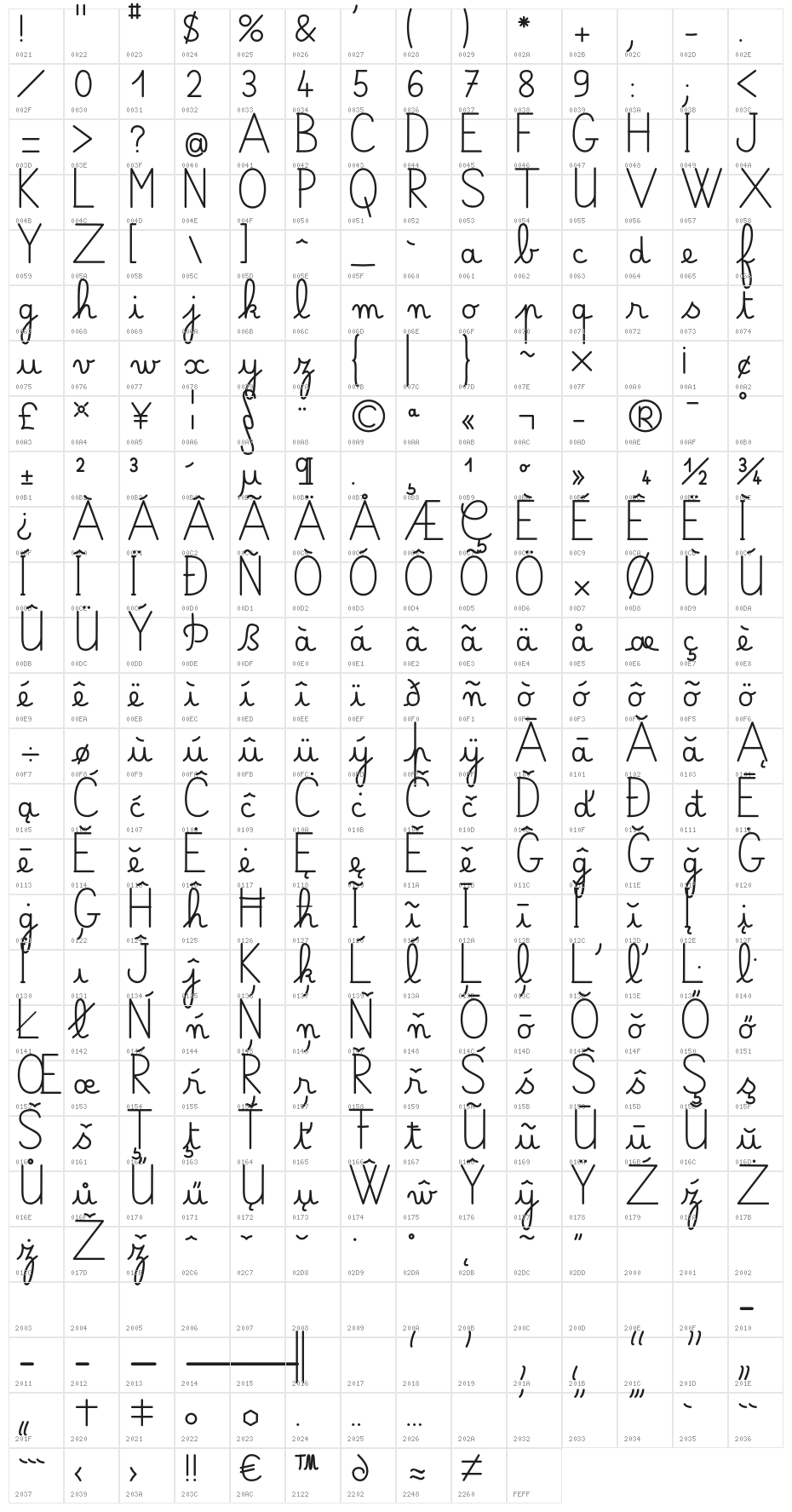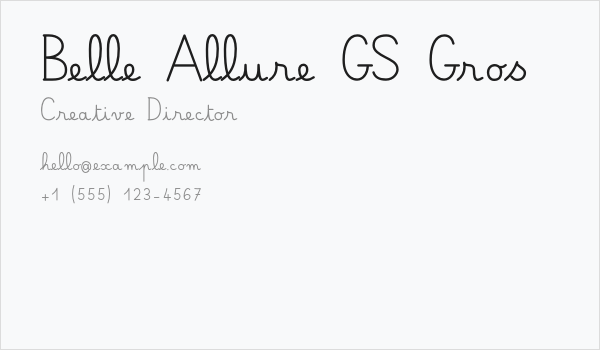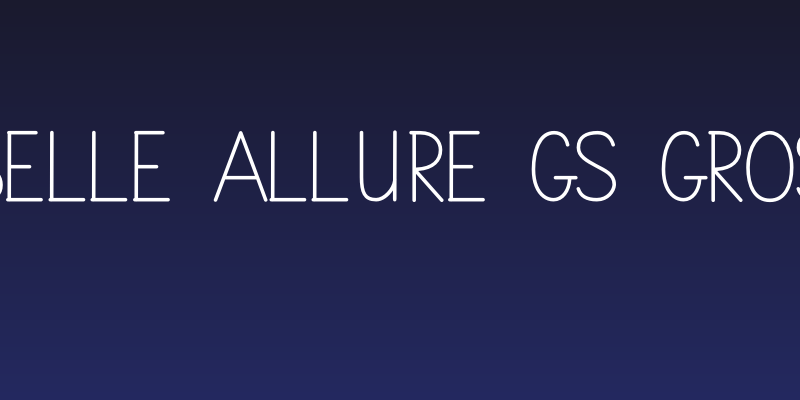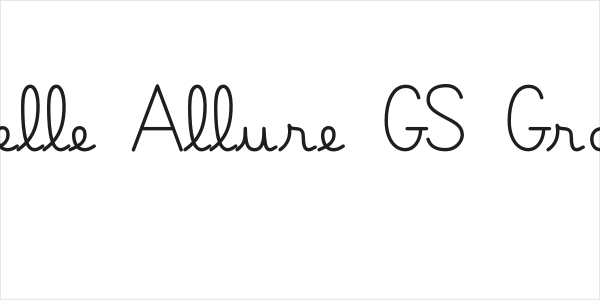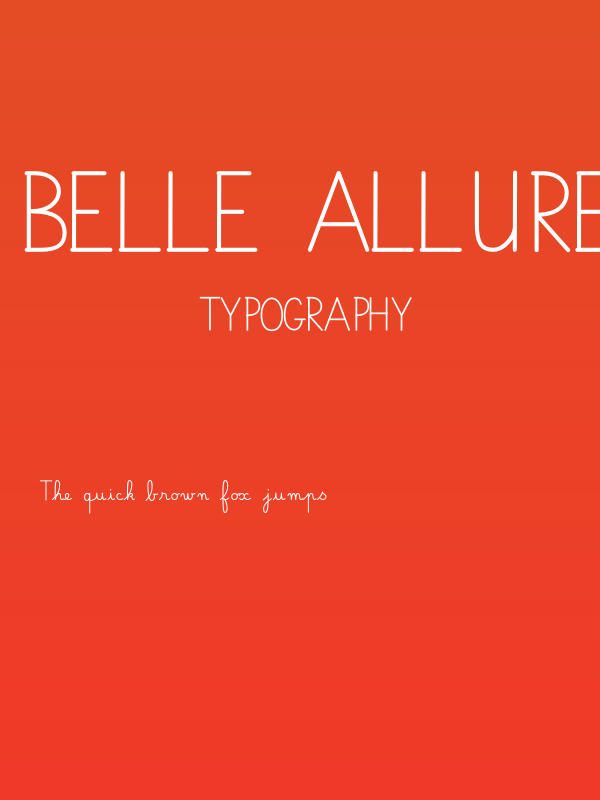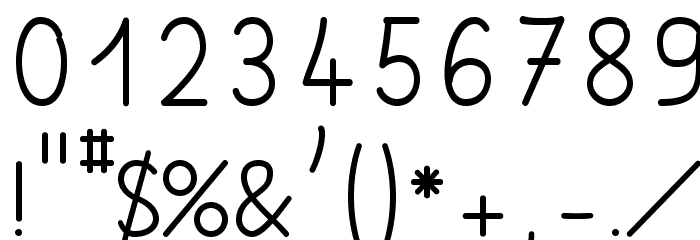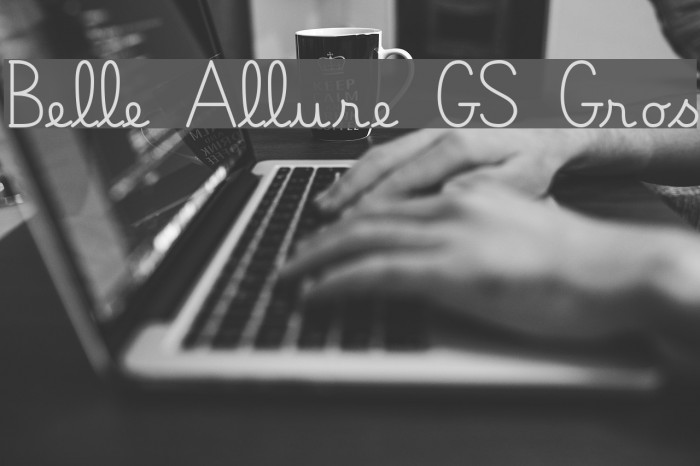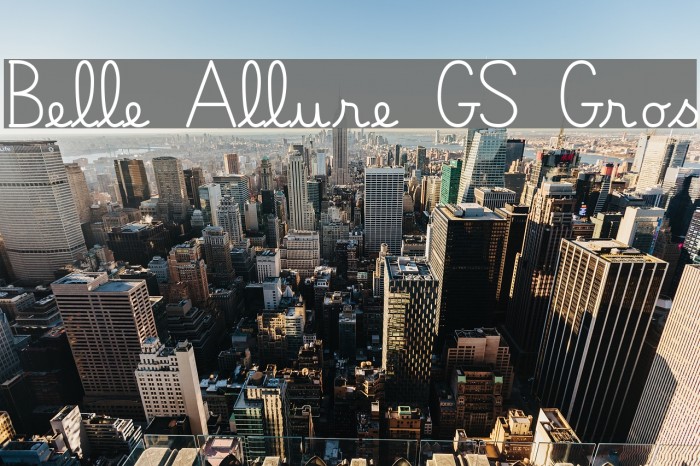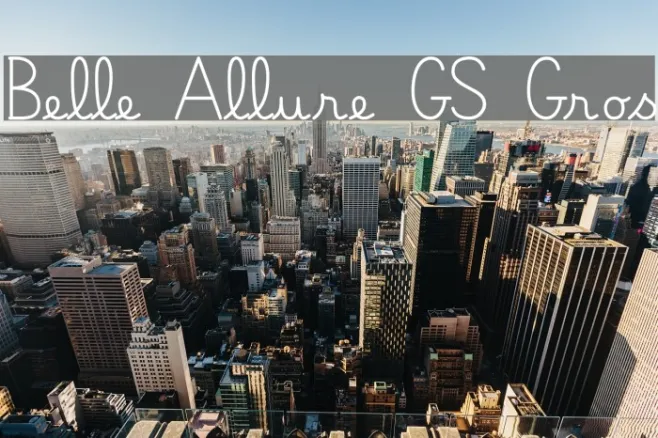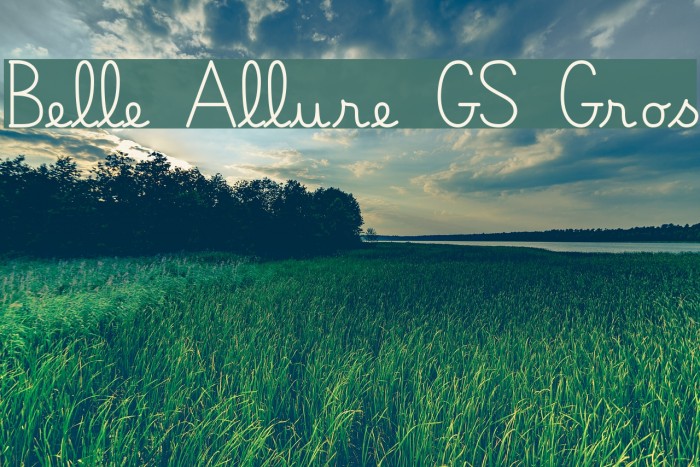
Belle Allure GS Gros Font
Belle Allure GS Gros Description
This font features a charming blend of simplicity and elegance, with uppercase letters that are clean and straightforward, while the lowercase letters exhibit a more playful, handwritten style. The numerals are clear and easy to read, maintaining the font's overall approachable feel. Special characters are well-integrated, ensuring versatility in various design contexts. The combination of straight lines and gentle curves gives it a unique personality, suitable for both formal and informal applications.
| Use Case | Headlines, Logos, Invitations |
| Proposed Projects | Ideal for wedding invitations, greeting cards, branding projects, and playful editorial designs. |